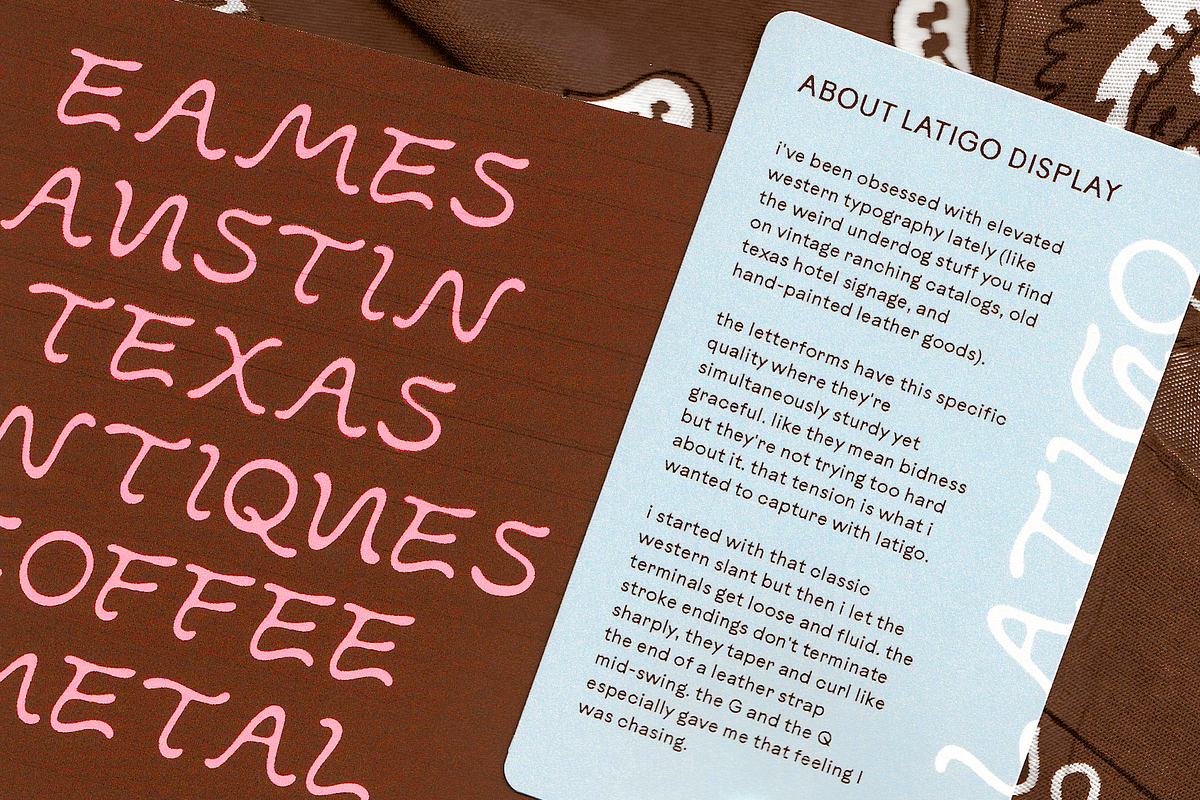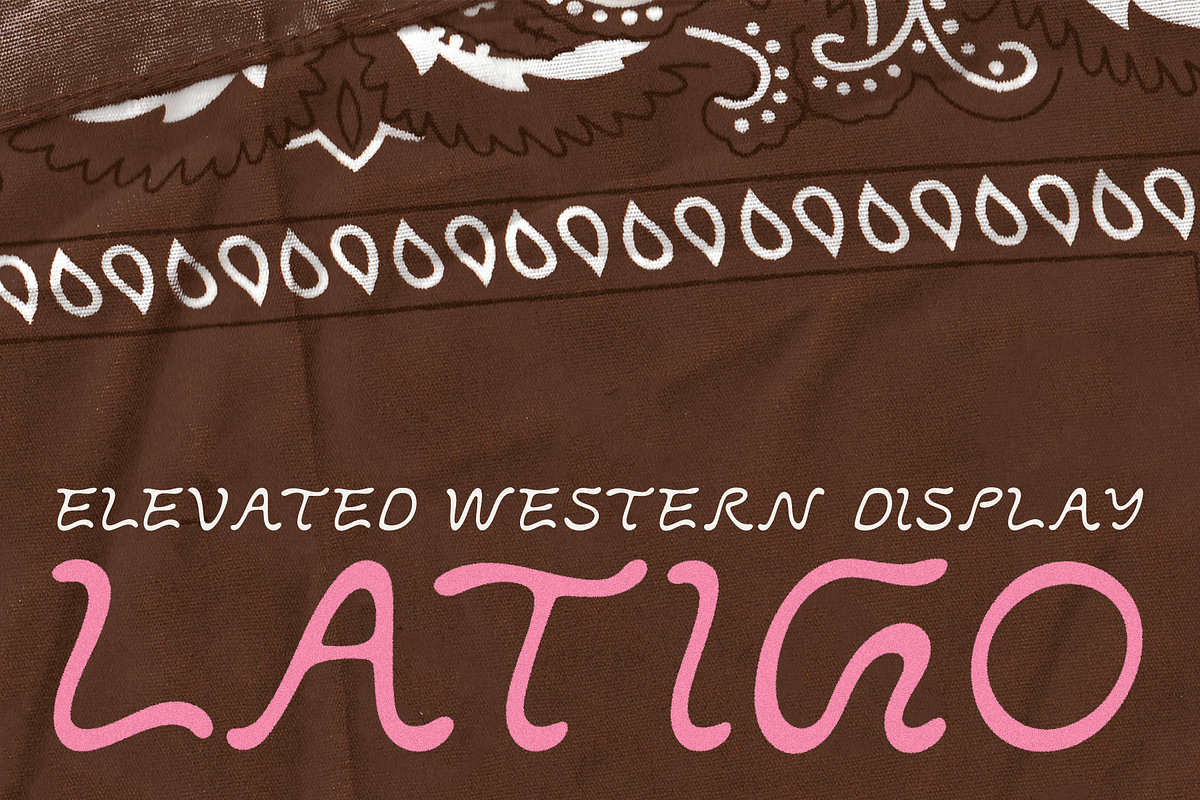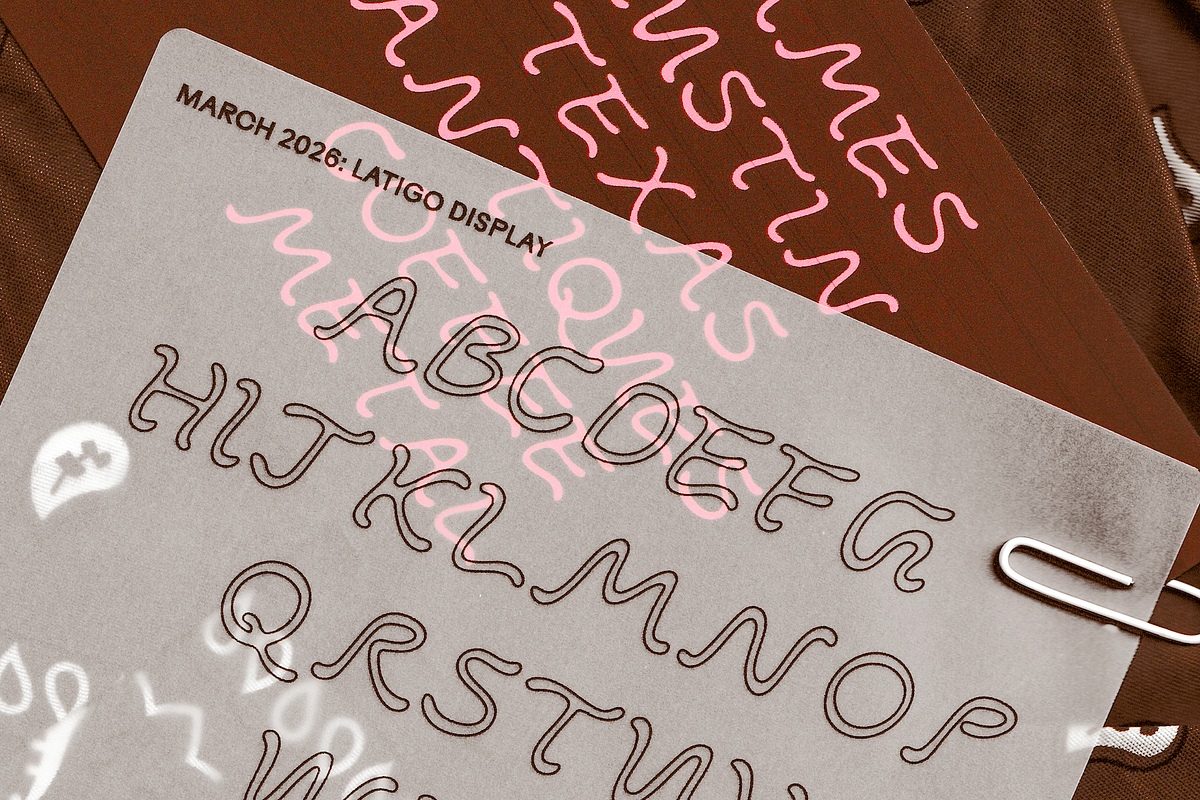
LATIGO by Abby Leighton
i've been obsessed with elevated western typography lately (like the weird underdog stuff you find on vintage ranching catalogs, old texas hotel signage, and hand-painted leather goods).
the letterforms have this specific quality where they're simultaneously sturdy yet graceful. like they mean bidness but they're not trying too hard about it. that tension is what i wanted to capture with latigo.
i started with that classic western slant but then i let the terminals get loose and fluid. the stroke endings don't terminate sharply, they taper and curl like the end of a leather strap mid-swing. the G and the Q especially gave me that feeling I was chasing.